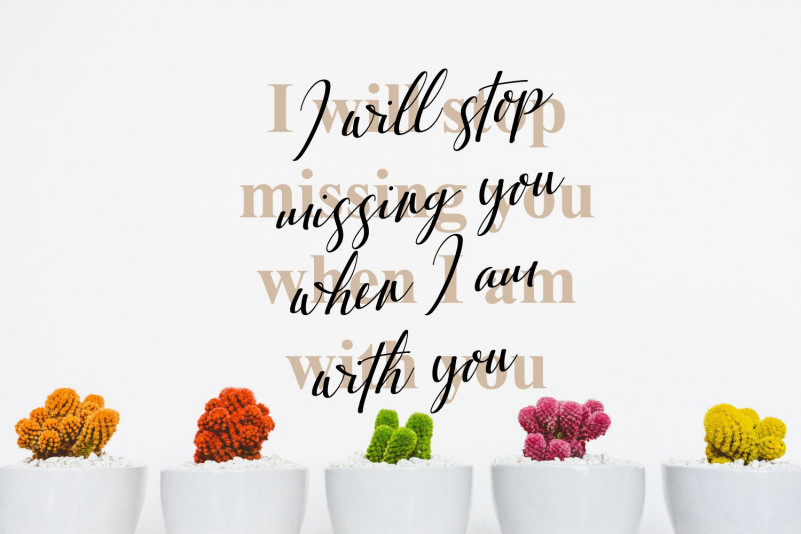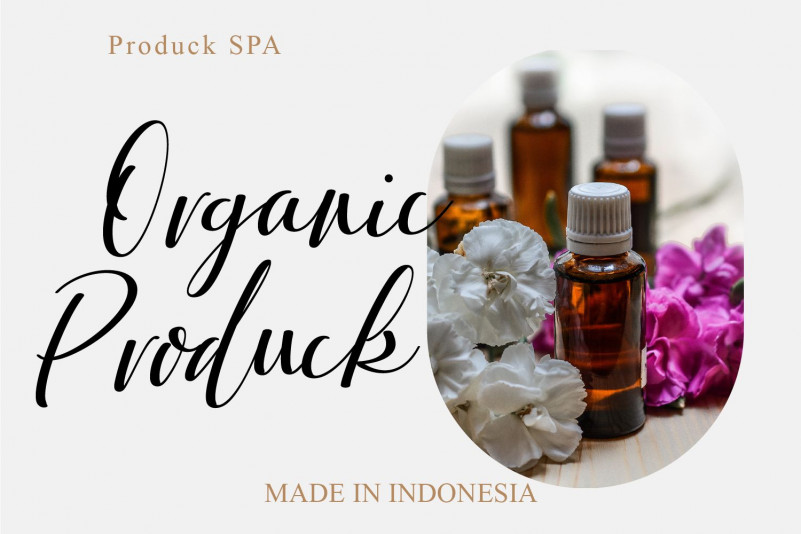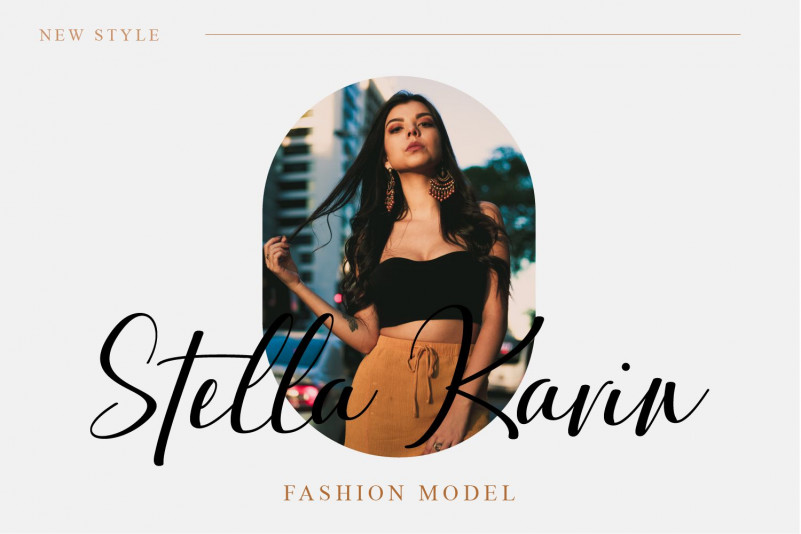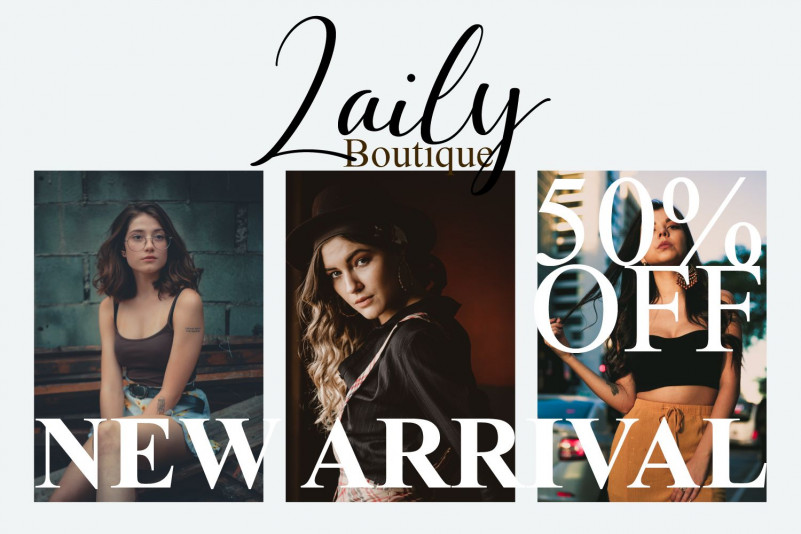
Ardinta Font
Ardinta Script Font
This is a beautiful and relaxed script font. It has a classy, elegant and modern look that can be used for logos, branding, invitations, stationery, wedding designs, social media posts, and much more!